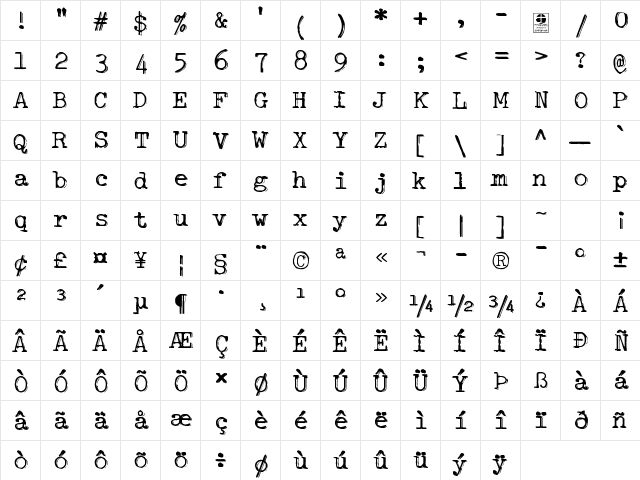
Typo Writer Shaky Demo Regular
| Foundry | StudioTypo |
| Designer | MEHMET ABACI |
Design Context for Typo Writer Shaky Demo Typeface
Typo Writer Shaky Demo takes a measured approach to typography — its balanced proportions and neutral character make it a reliable workhorse for both digital and print work.